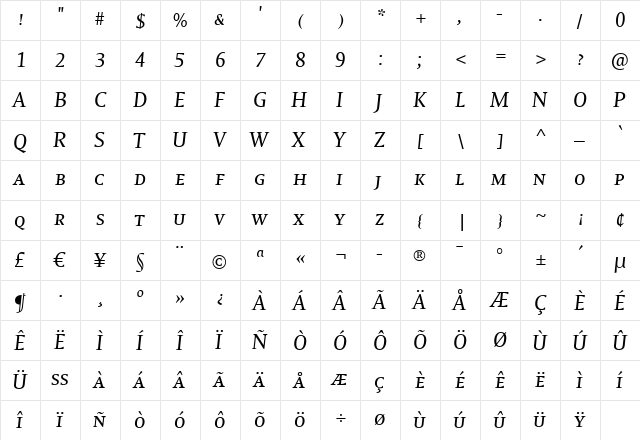
EnigmaSC Regular
Design Context for EnigmaSC Typeface
EnigmaSC takes a measured approach to typography — its balanced proportions and neutral character make it a reliable workhorse for both digital and print work.